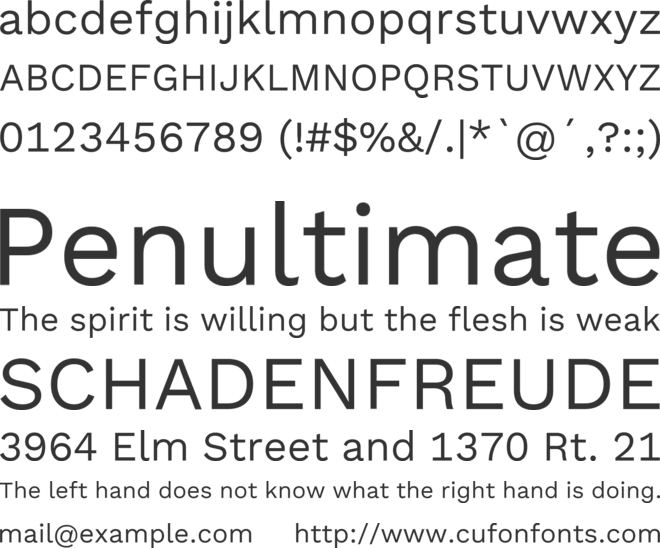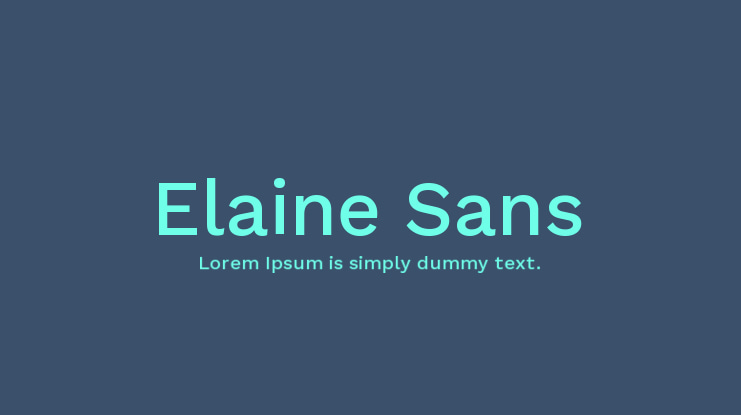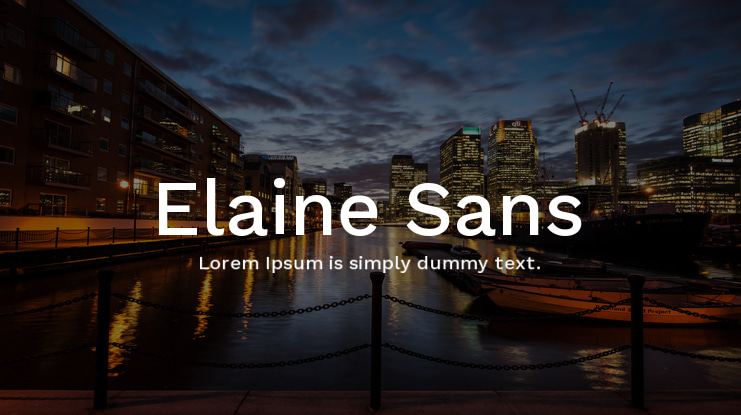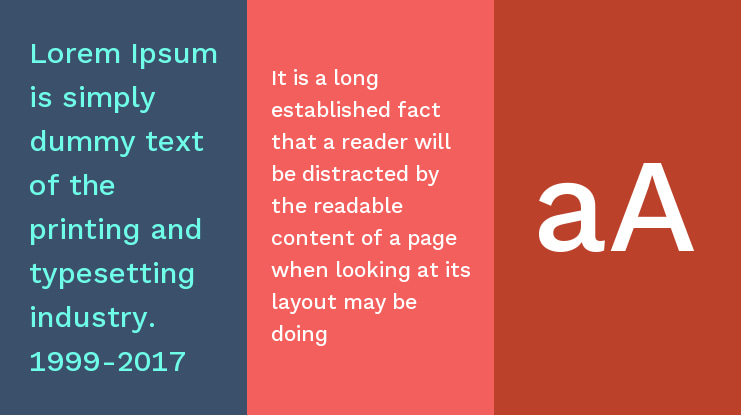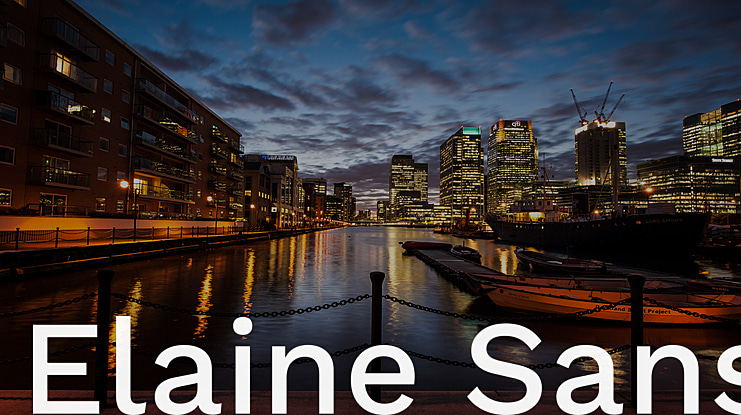
Elaine Sans Font Family
Elaine Sans is a grotesque sans-serif forked from Work Sans fonts, version 2.001 (the first release with italics). The first modifications are a single-storey 'g', an 'R' with curled leg, and tabular figures.